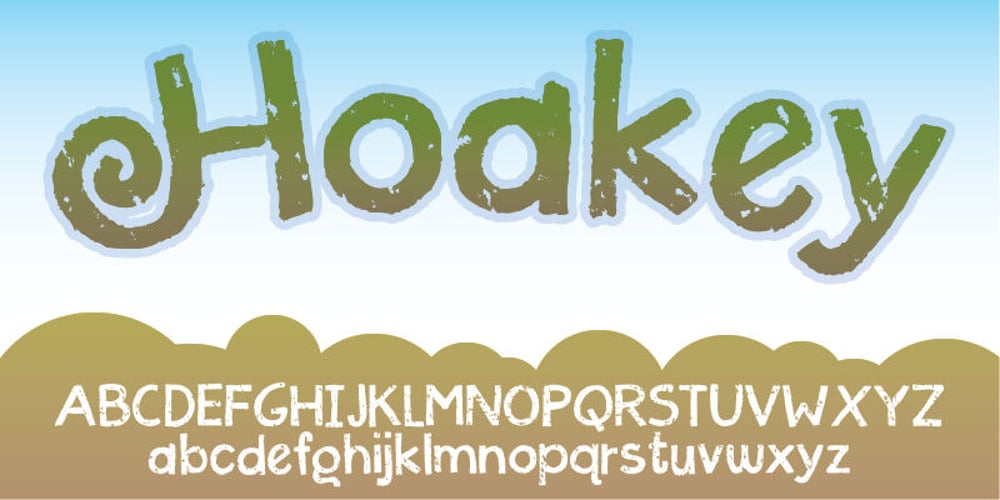
Hoakey Font Family was designed by Jakob Fischer and published by PizzaDude.dk. Hoakey contains 1 styles and family package options. Hoakey is not really a grunge font, although it comes with rugged edges and a worn surface. This may sound like a grunge typeface, but Hoakey is a lot more than that! It oozes romance. Hoakey has curly alternate uppercase letters, and ligatures for both double lowercase and double numbers. You will need to use OpenType supporting applications to use the autoligatures.